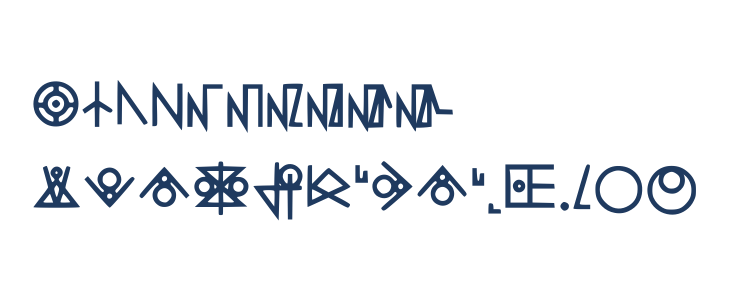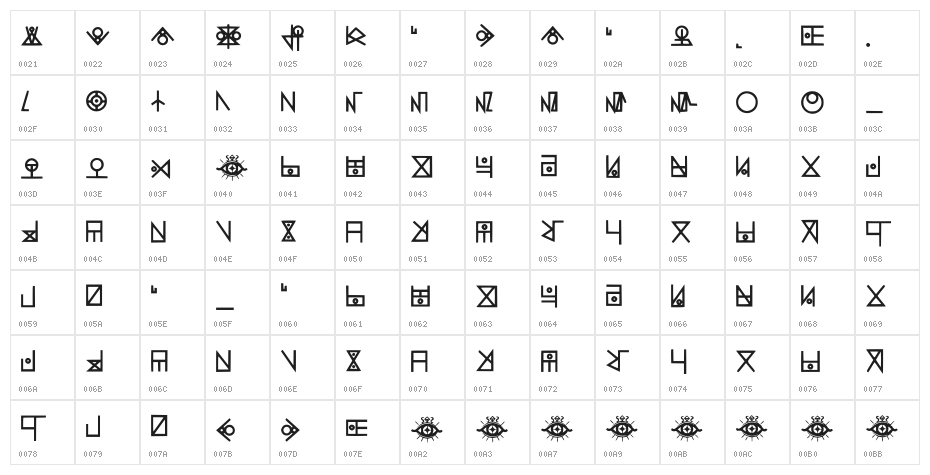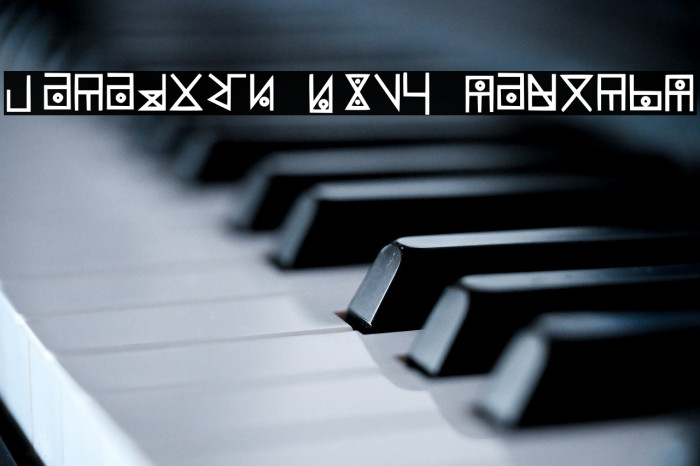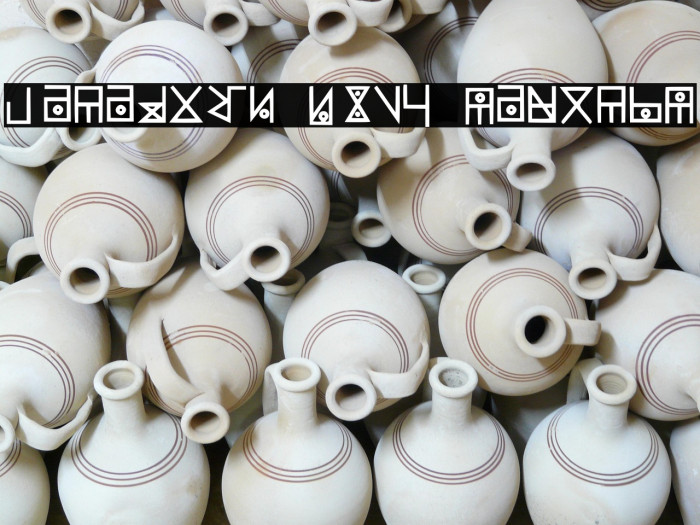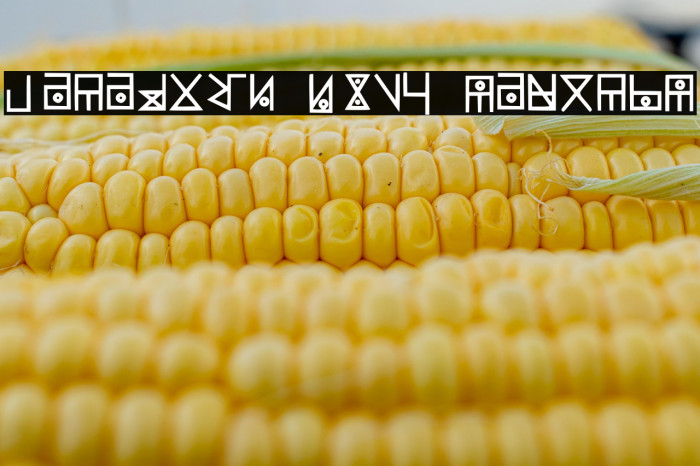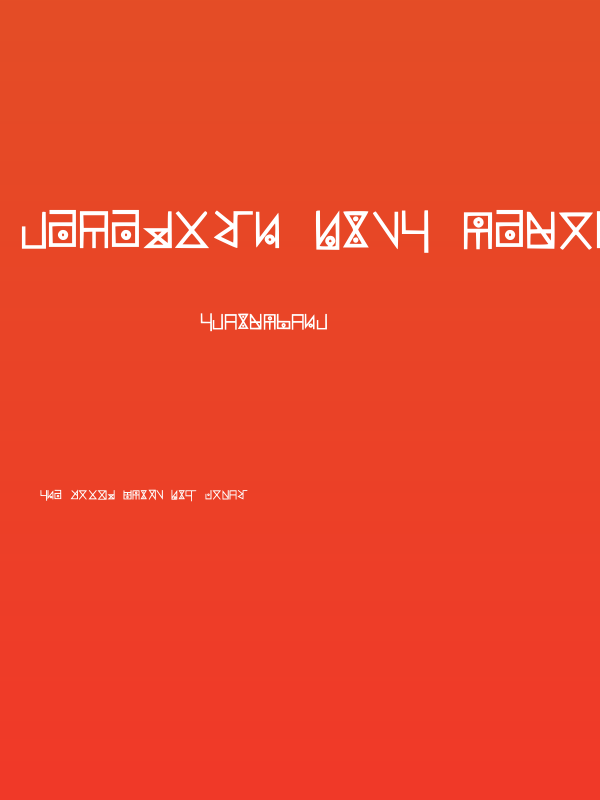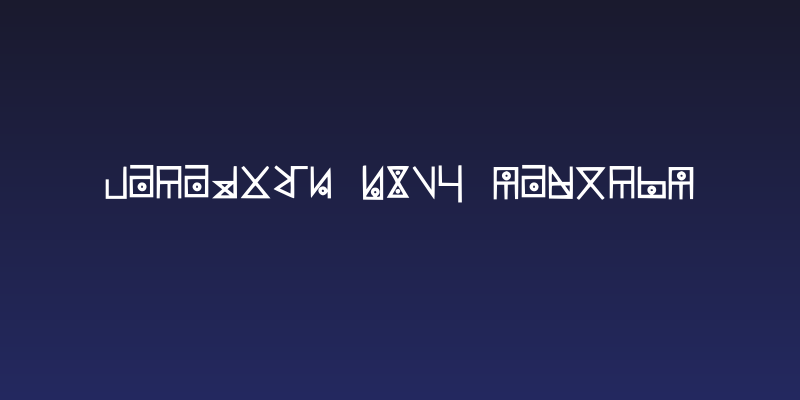
Yelekish Font Regular Font
Yelekish Font Regular Description
This font features a highly decorative and abstract design, characterized by geometric shapes and intricate patterns. Each character is uniquely crafted with bold lines and sharp angles, creating a futuristic and cryptic appearance. The font's style is reminiscent of ancient symbols or runes, making it ideal for projects that require a mysterious or avant-garde aesthetic. The characters are evenly spaced, maintaining a consistent visual flow across text. This font is not suited for body text due to its complex design but excels in creating striking headlines or artistic logos.
| Overall Style | Futuristic, Cryptic |
| Proposed Projects | Ideal for creating unique logos, artistic posters, or themed event invitations. |